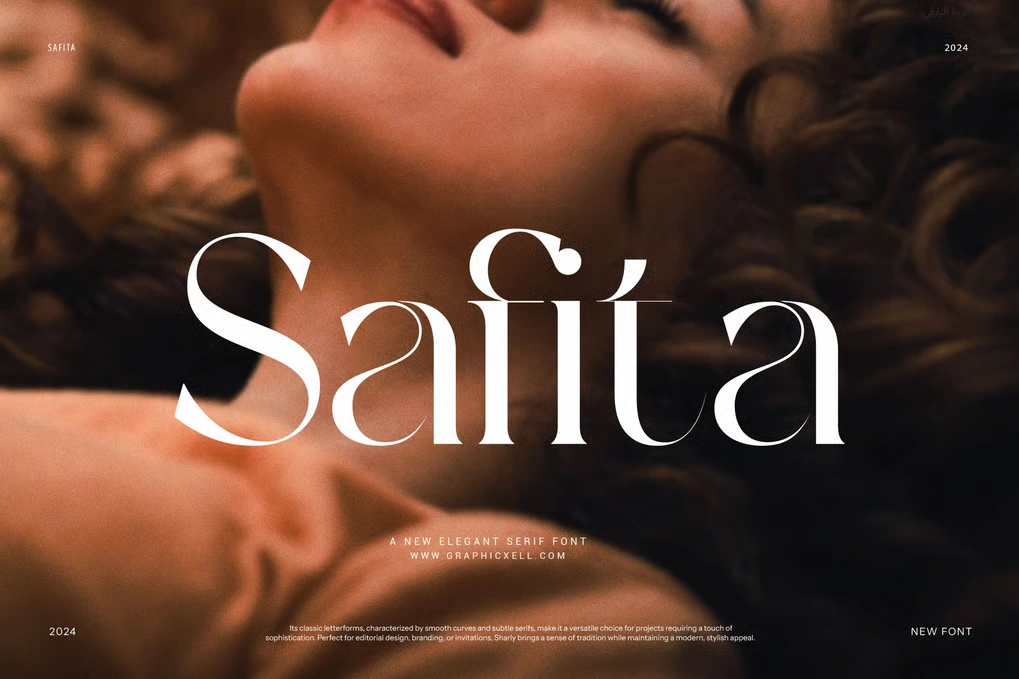
Safita Elegant Serif Font
Discover Safita Elegant Serif Font, a modern and stylish serif font that adds charm and clarity to your designs. This font combines simple elegance with a fresh look, making it perfect for many creative uses.
Because Safita has well-balanced letter shapes, it offers easy reading on both print and digital projects. Moreover, it includes functional ligatures that help your text flow smoothly and look polished. Thanks to these features, Safita works great for logos, branding, websites, magazines, product packaging, and advertising.
Whether you design for fashion, boutiques, food brands, or luxury products, Safita will give your work a professional and refined feel. Plus, it fits well with layouts, editorial designs, and other branding needs.
Here are some reasons why Safita stands out:
It offers a clean, modern serif style with elegant details.
The proportional shapes make reading simple and natural.
Functional ligatures add beauty and connection between letters.
It is perfect for logos, websites, magazines, and product packaging.
It suits fashion, luxury, food, boutique, and advertising projects.
Because of its smooth curves and sharp edges, Safita helps your designs look stylish and memorable. Whether you are a designer or brand owner, this font is a smart choice to raise the quality of your work.
In summary, Safita Elegant Serif Font brings together style, clarity, and flexibility. Add it to your design tools today to create timeless and beautiful projects that stand out.